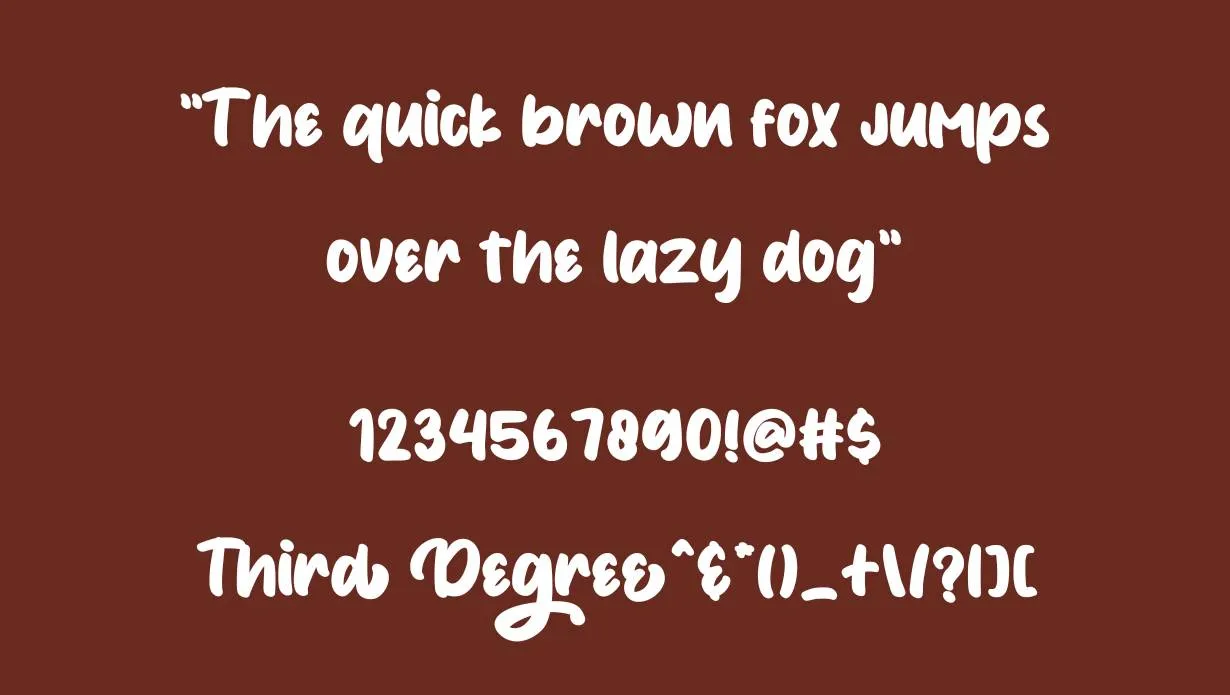
The Third Degree font makes a bold statement with its strong and impactful design, perfect for creating eye-catching headlines in news articles, designing powerful protest banners, or adding a touch of activism to your branding.
| Name | Third Degree Font |
| Designer | Stefie Justprince |
This font has a heavy weight and standard width, giving your words a commanding and forceful presence. Imagine using the Third Degree font for a social justice campaign, turning your text into a call for change.